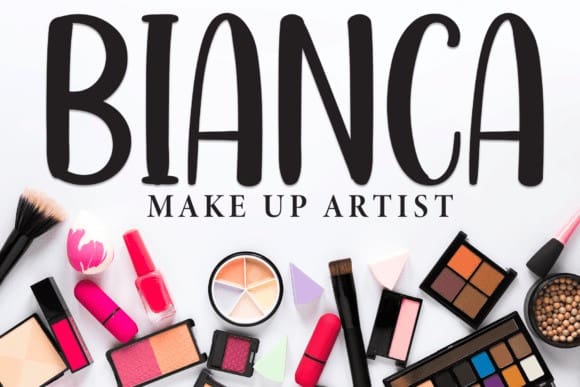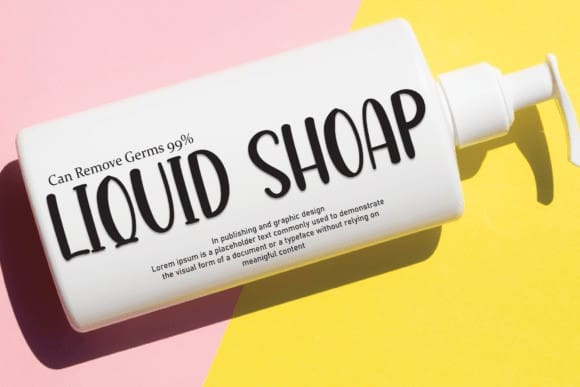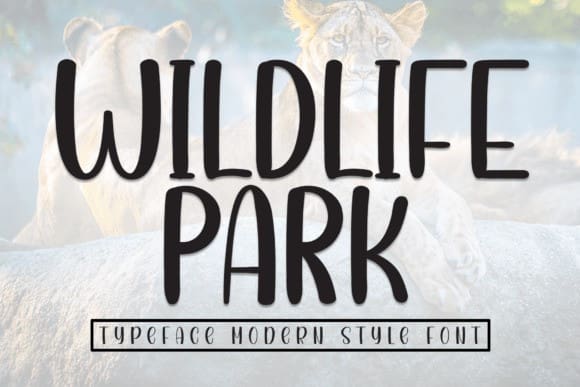
Wildlife Park Font
Wildlife Park Font is a sweet and friendly handwritten font. Fresh and cute, this font is ideal for writing wedding invitations, cards, or any other design that might need a fun touch!